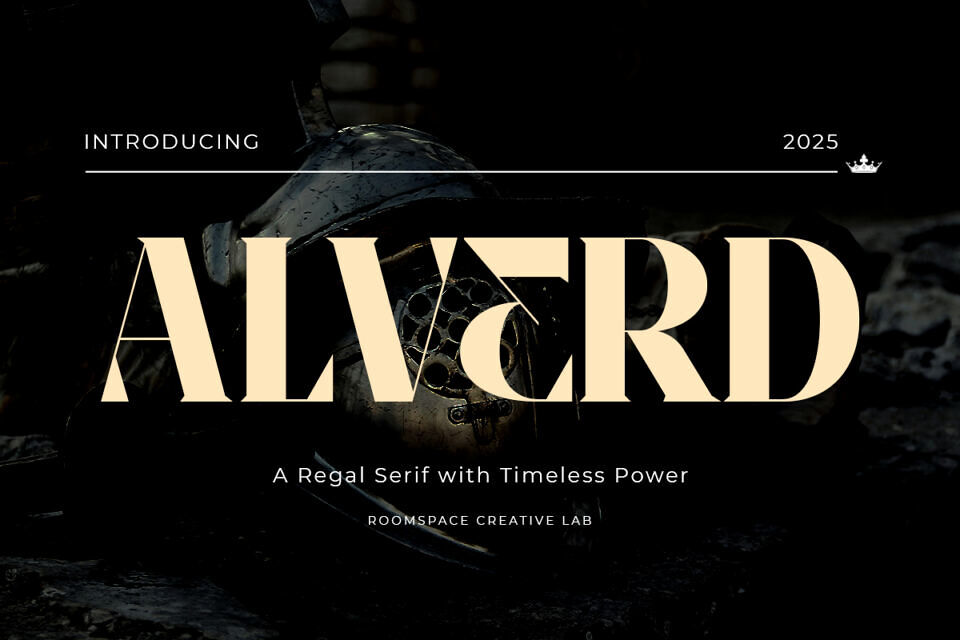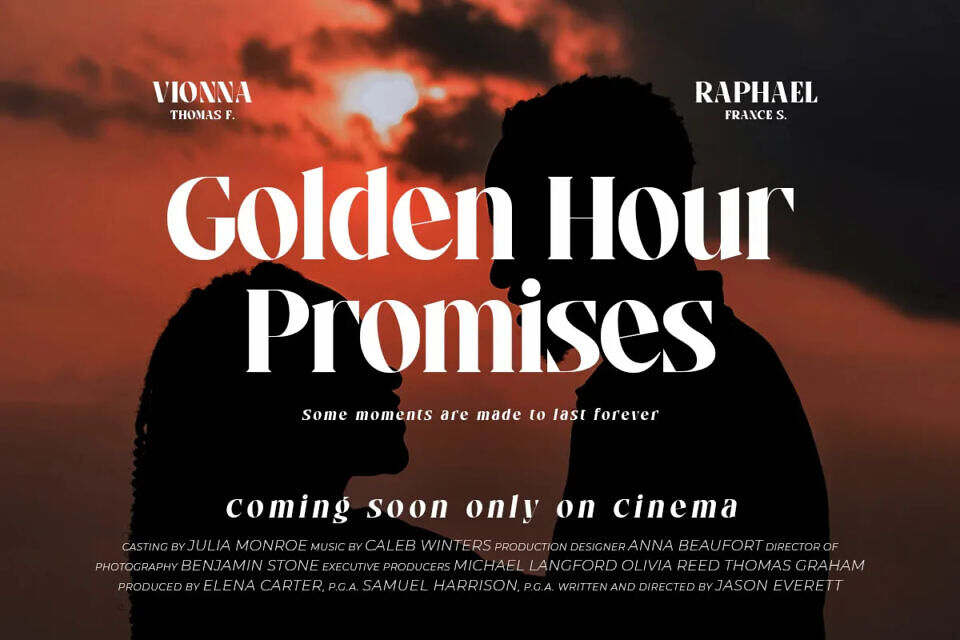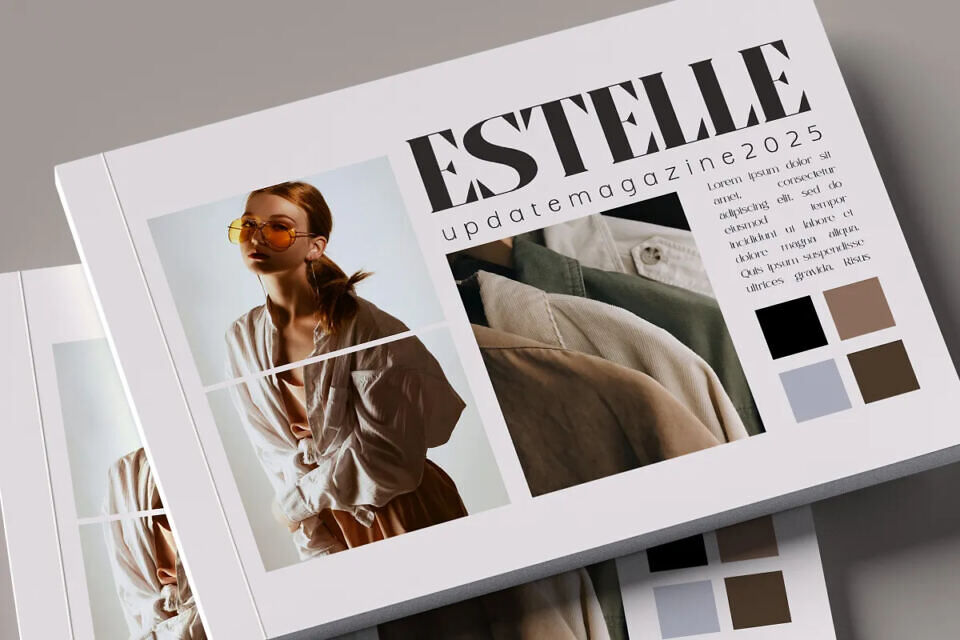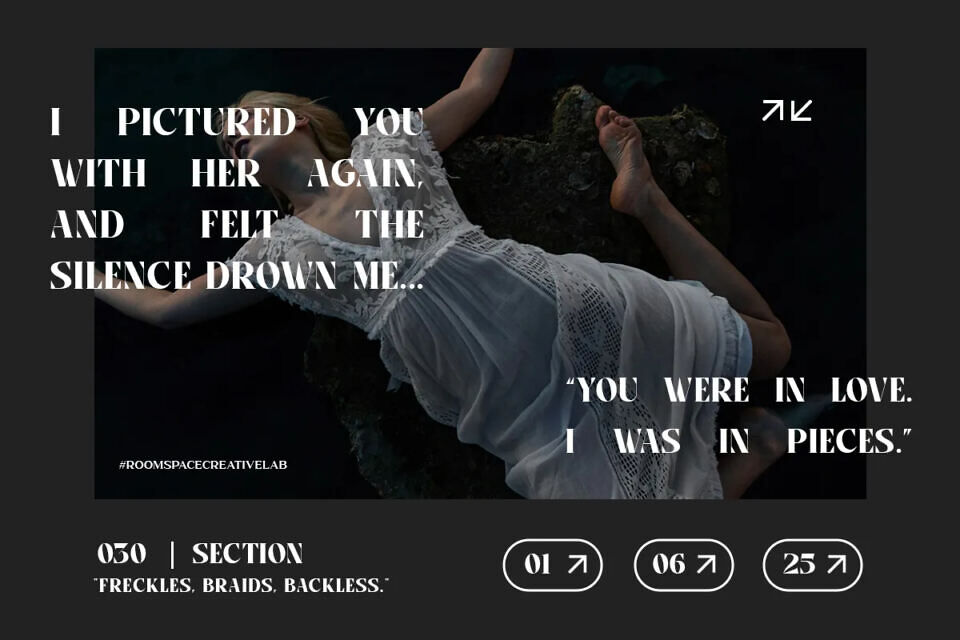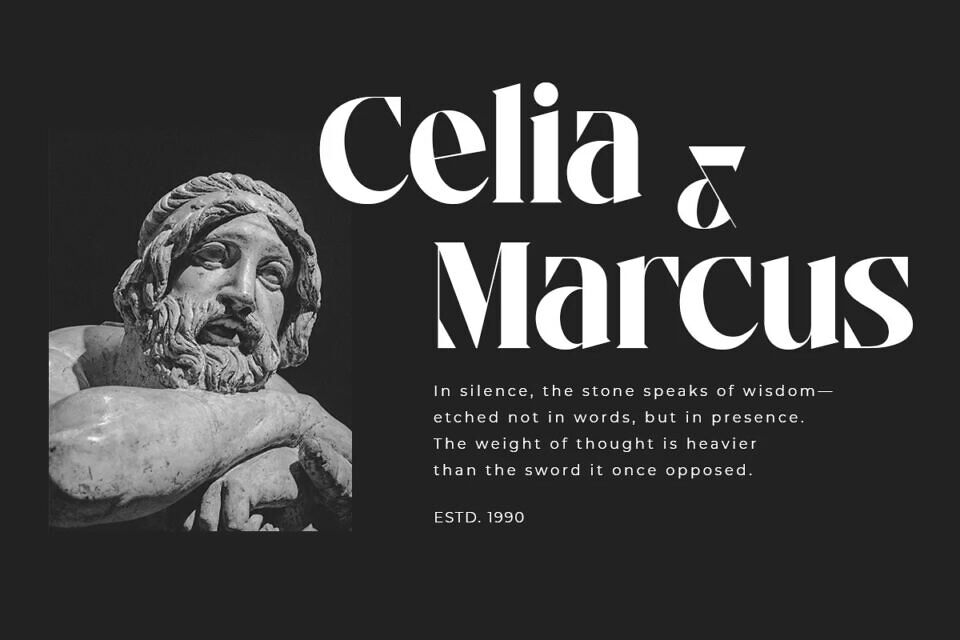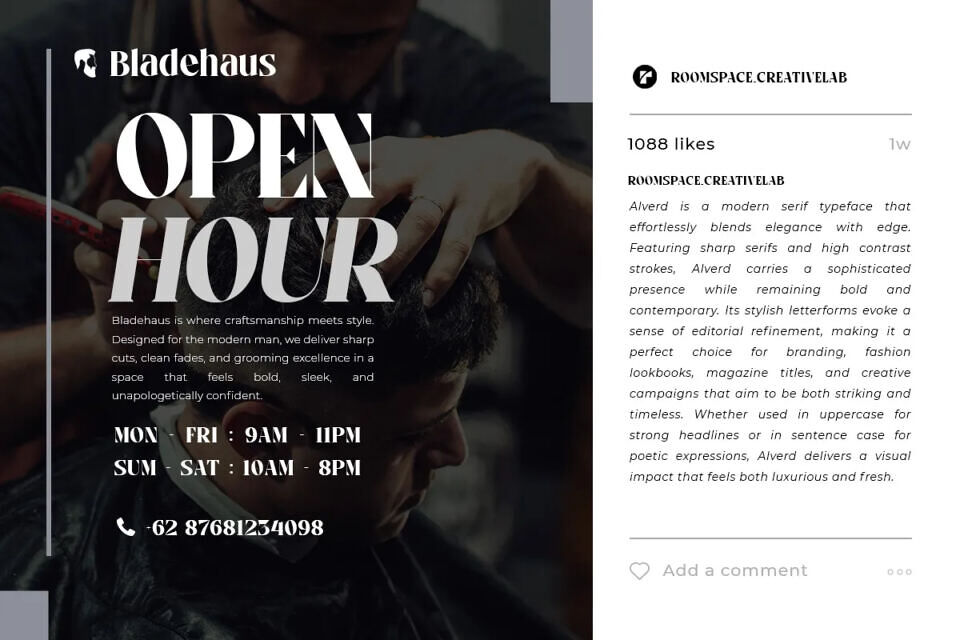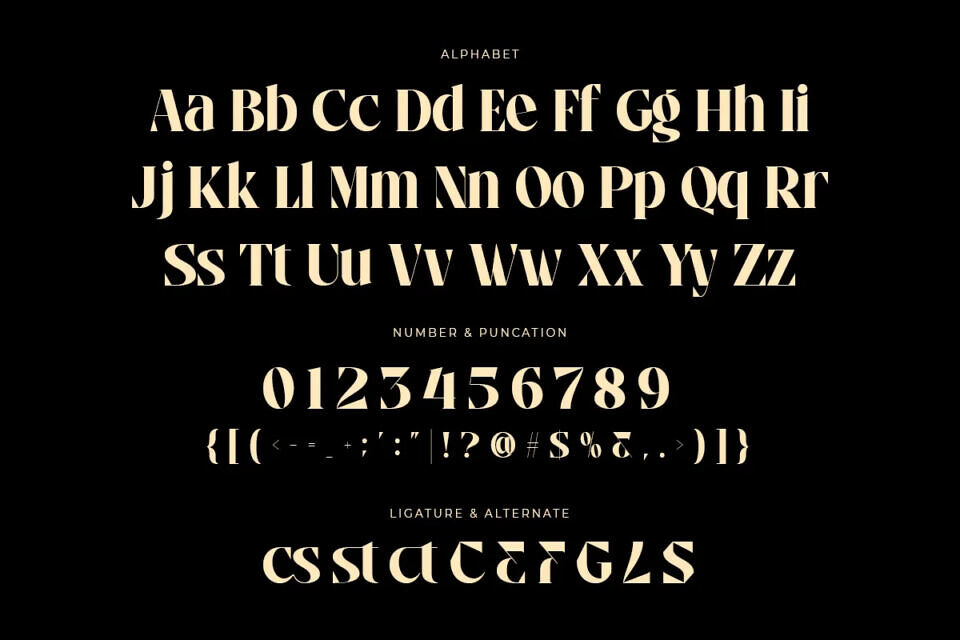
Alverd Font
Alverd is a regal serif font designed to command attention and elevate your designs with timeless elegance. Inspired by the strength and sophistication of classical lettering, Alverd combines bold, geometric forms with refined details, making it perfect for high-impact branding, logos, headlines, and editorial designs.
With its powerful presence and timeless character, Alverd is ideal for creating premium visual identities, luxury packaging, posters, and anything that demands a bold, sophisticated touch. Whether you’re working on a modern brand, a historical concept, or a bold statement piece, Alverd delivers unmatched style and confidence.